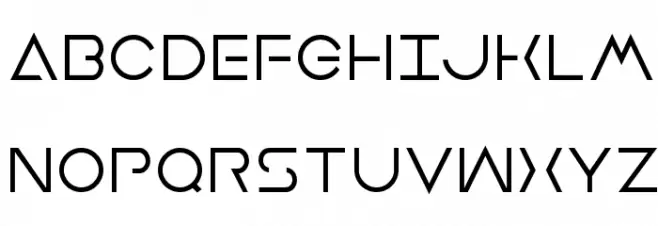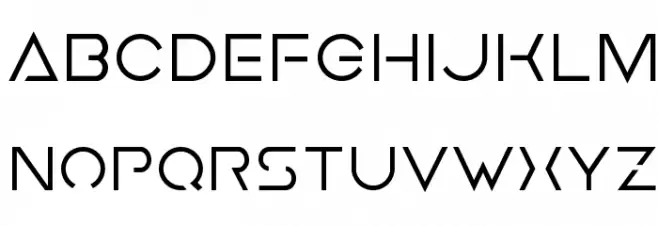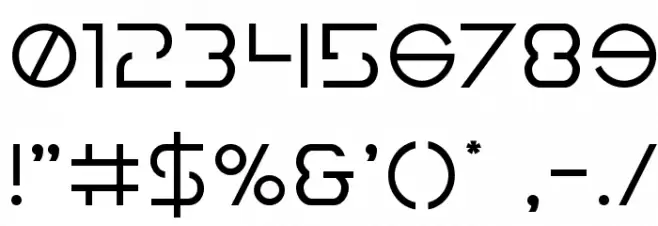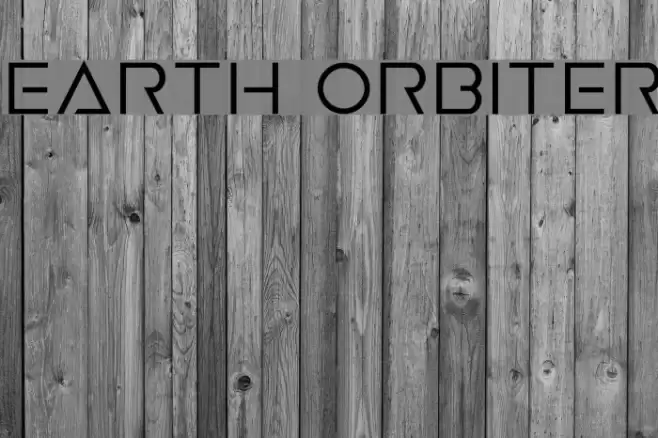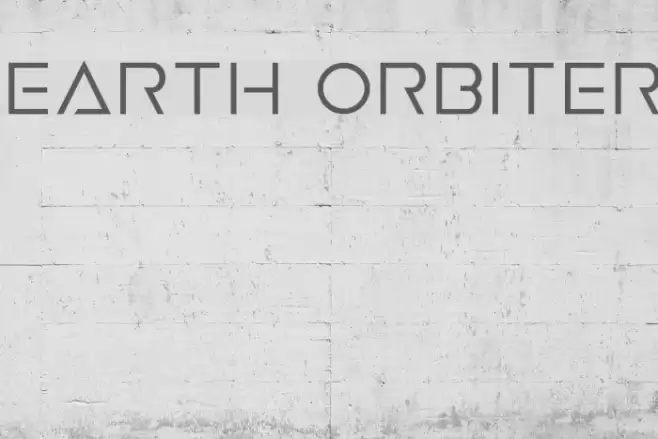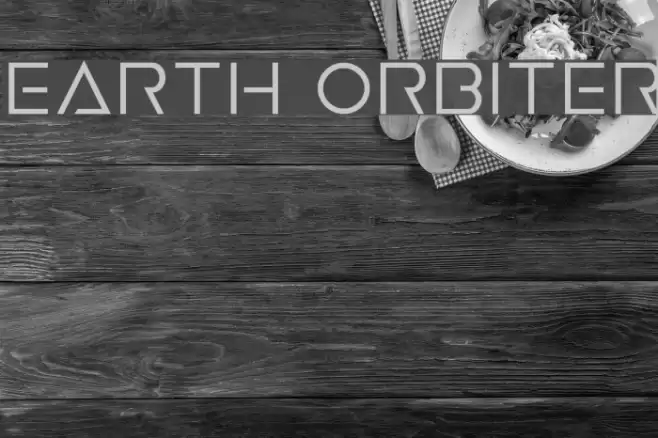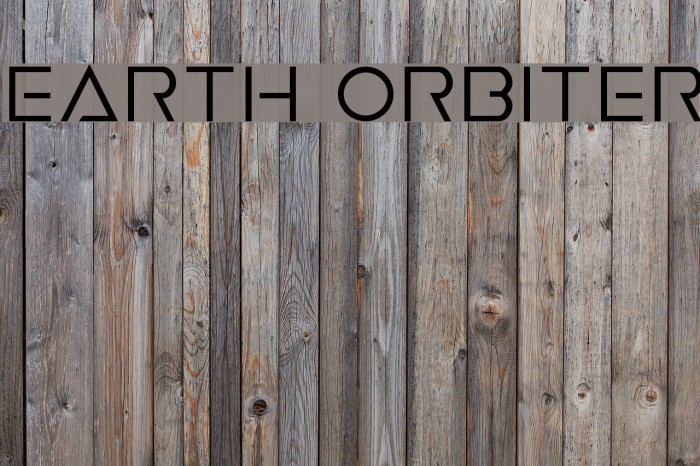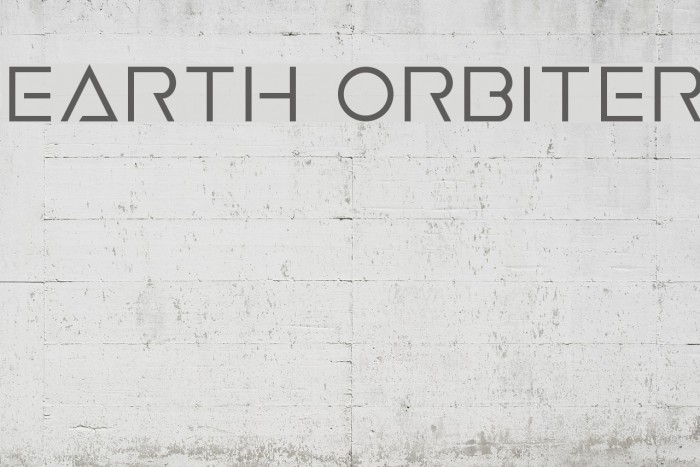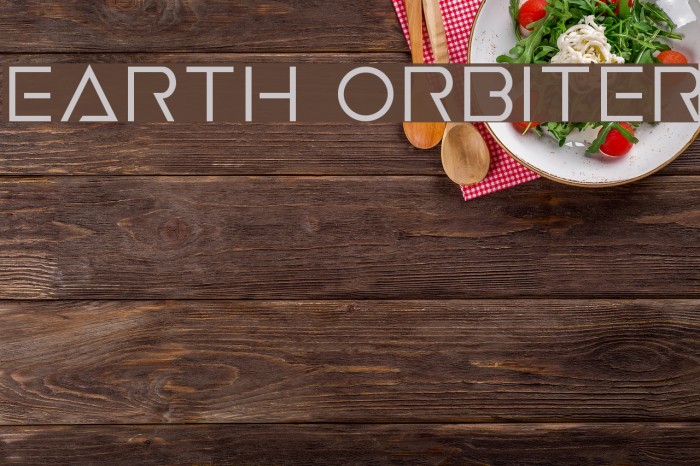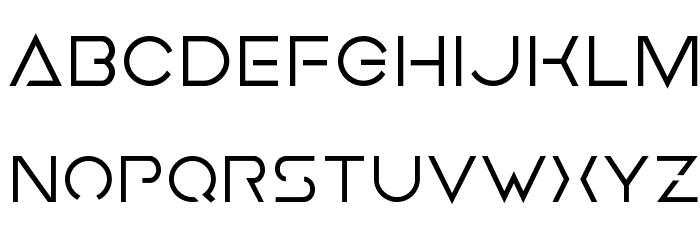
Earth Orbiter Font
Earth Orbiter Description
This font features a futuristic and geometric design, characterized by its clean lines and angular shapes. The uppercase letters are distinct with sharp edges and a consistent stroke width, giving it a modern and sleek appearance. The numerals and special characters maintain the geometric theme, with unique interpretations that add to its distinctiveness. The font's overall style is minimalistic yet bold, making it suitable for projects that require a contemporary and tech-inspired aesthetic.
A futuristic, geometric font with sharp, clean lines and a modern aesthetic.
- Proposed Projects: Ideal for technology branding, sci-fi themed designs, modern posters, and digital interfaces.